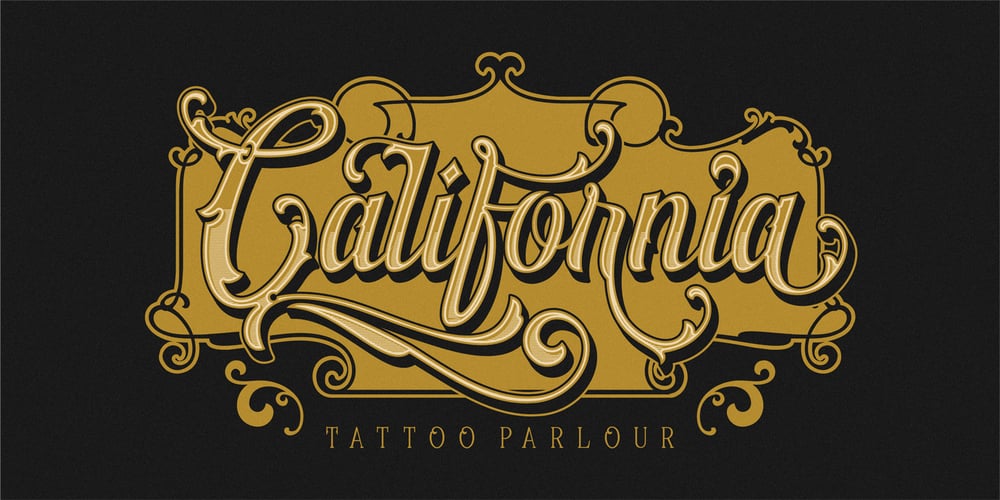
Golden Signer Font Family was designed by Irma Asharini and published by Letrasupply Typefoundry. Golden Signer contains 6 styles and family package options. Golden Signer was inspired by vintage and tattoo letters. The font family comes with Regular and Serif type, completed with alternates characters, deboss style, shapes and also free ornaments. Golden Signer is a perfect package for any project that needs display lettering.